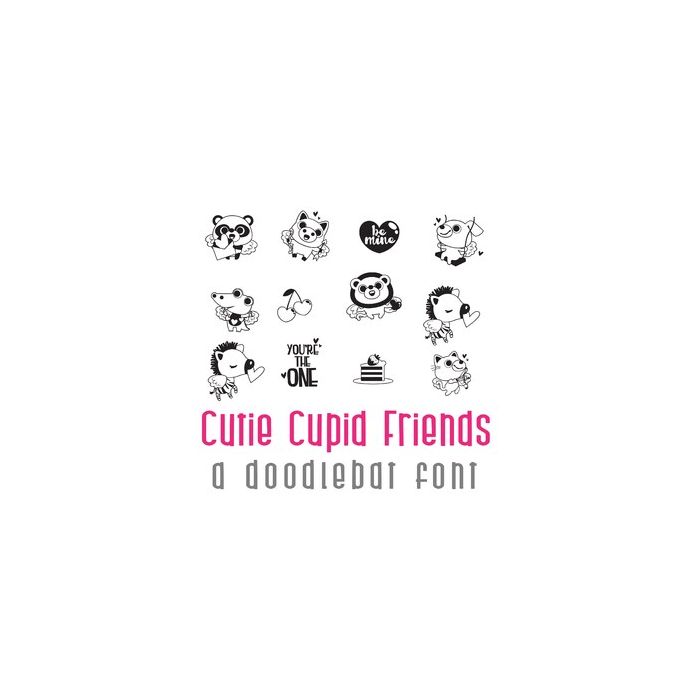
This adorable doodlebat features 26 animal cupids, heart-felt sayings, and valentine imagery. Perfect for cards, crafts, gifts, decor, planner stickers, scrapbook pages and more!